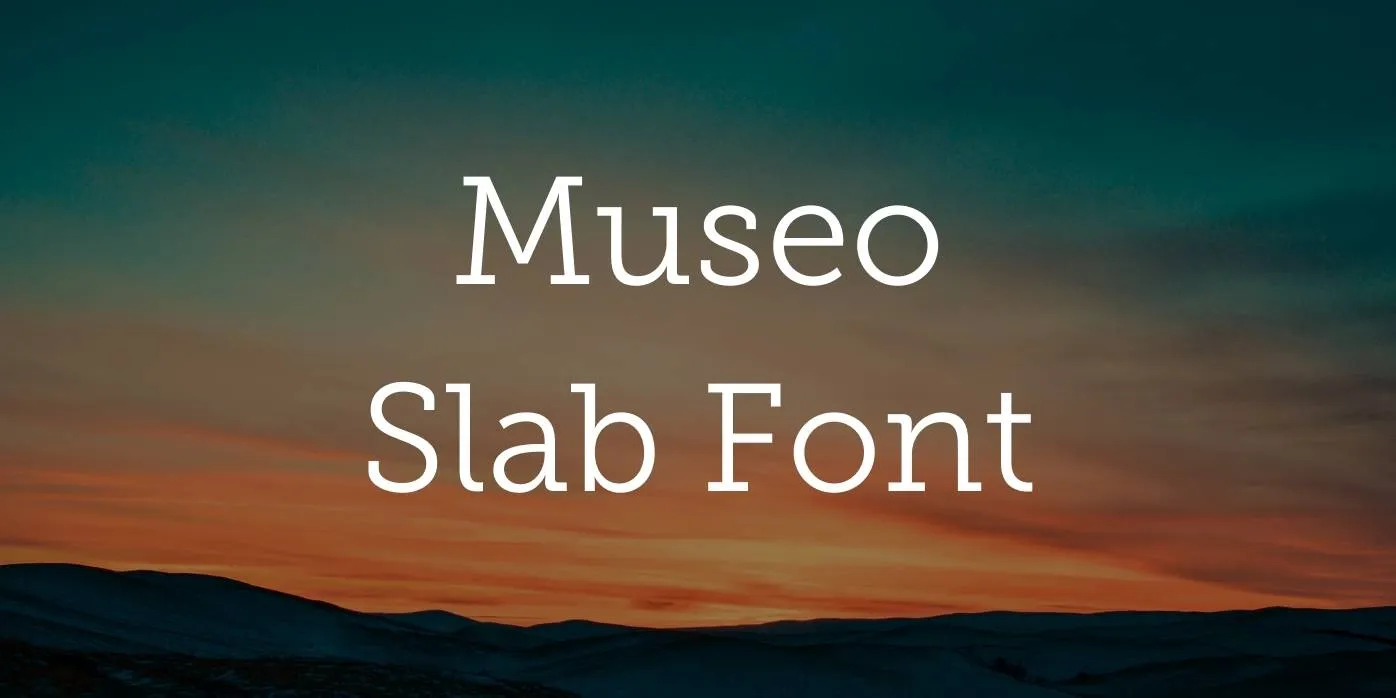
Museo Slab Font
Museo Slab Font is a famous slab serif typeface. This awesome typeface was designed by Jos Buivenga. This stunning family includes 4 special weights. This staggering font is perfect for headlines and big text.
This amazing typeface is also great for long paragraphs of text. Museo Slab Typeface is available in both regular and italic versions. It is used for personal and commercial use. If you’re looking for a professional slab serif typeface, then Museo Slab typeface is a perfect choice.
This awesome family releases an update in early 2020. This includes 4 new weights with matching italics. This great typeface is perfect for headlines, big text, and long paragraphs of text. This classic font is available in both regular and italic versions.